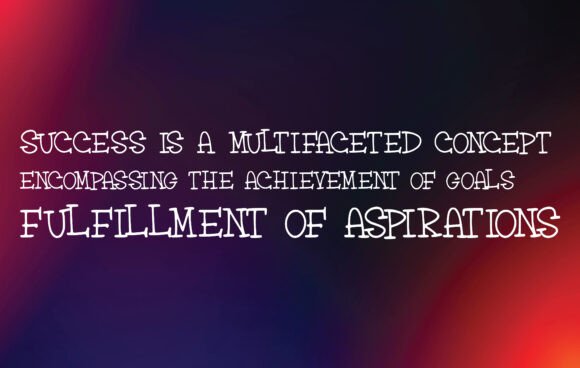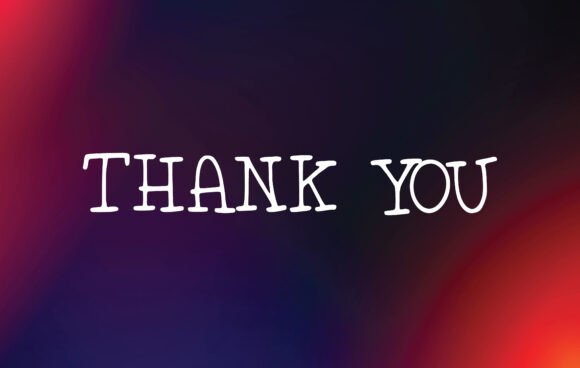
Introduction to Margay Font
Have you ever been working on a creative project, pouring your heart and soul into it, only to find the perfect font to bring it all together is nowhere to be found? For designers, this can be a frustrating experience, but what if we told you that there’s a beautiful, high-quality font that’s about to change the game?
Meet the stunning Margay Font, a lovely and beautiful handwritten font that’s sure to elevate your creative ideas to new heights. With its unique charm and versatility, this design resource is perfect for creating eye-catching logos, branding, and quotes that will leave a lasting impression.
Key Features of Margay Font
- High-quality design resource with a unique, exotic feel, perfect for creative projects.
- Includes multiple font weights and styles, providing flexibility for various design applications.
Honest Review: Margay Font
As a designer, I’m always on the lookout for high-quality design resources that can elevate my creative projects. The Margay Font has been a recent discovery, and I’m excited to share my honest review.
What works well: ✨ The Margay Font offers a clean and modern design aesthetic that’s perfect for a variety of creative projects. The font’s versatility makes it suitable for both digital and print media. The transparent background feature allows for seamless integration into any design.
Here are some of the font’s key features:
- High-quality design with a modern aesthetic
- Supports a wide range of languages
Limitations: ⚠️ While the Margay Font is a solid choice, it may not be suitable for projects requiring a more elaborate or ornate font. Additionally, some users may find the font’s simplicity too minimalist for their taste.
How to Use Margay Font
The Margay Font is a high-quality design resource ideal for creative projects. It offers a unique and stylish look that can elevate any design. With a transparent background, this font can be easily integrated into various design platforms.
Tips for Getting the Most Out of Margay Font
Experiment with different font sizes, colors, and combinations to achieve the desired look. Use the transparent background to create a cohesive design.
The Margay Font is suitable for a wide range of creative projects, including branding, advertising, and editorial designs. Its unique style makes it an excellent choice for creating eye-catching designs.